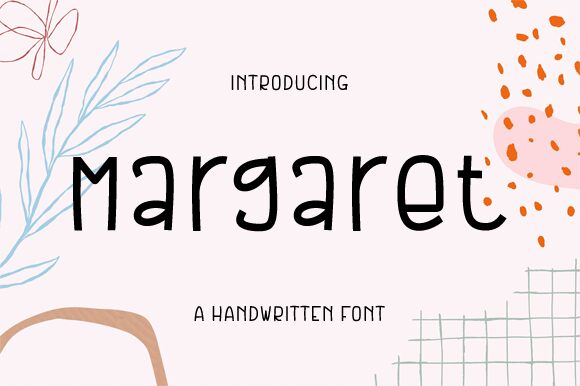
Margaret, a creation by Graphix Line Studio, stands out as an embodiment of elegance and personal touch in the realm of typography. This semi-light handwritten font boasts graceful curves and fluid strokes that capture the charm of traditional handwriting with a modern flair. The aesthetic appeal of Margaret lies in its harmonious balance between casual spontaneity and meticulously crafted design, making it an ideal choice for projects requiring a sense of intimacy and sophistication.
Whether you're designing heartfelt invitations, branding materials, or creative editorial content, Margaret's friendly yet polished style adds a humanistic element that resonates with audiences. Its legibility and versatile character ensure that this font retains its distinctive personality across various applications while enhancing the overall visual narrative. Embrace the allure of Margaret for your next design project to infuse your work with warmth and subtle refinement.